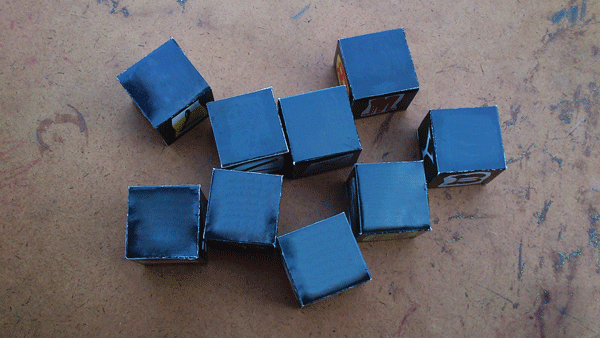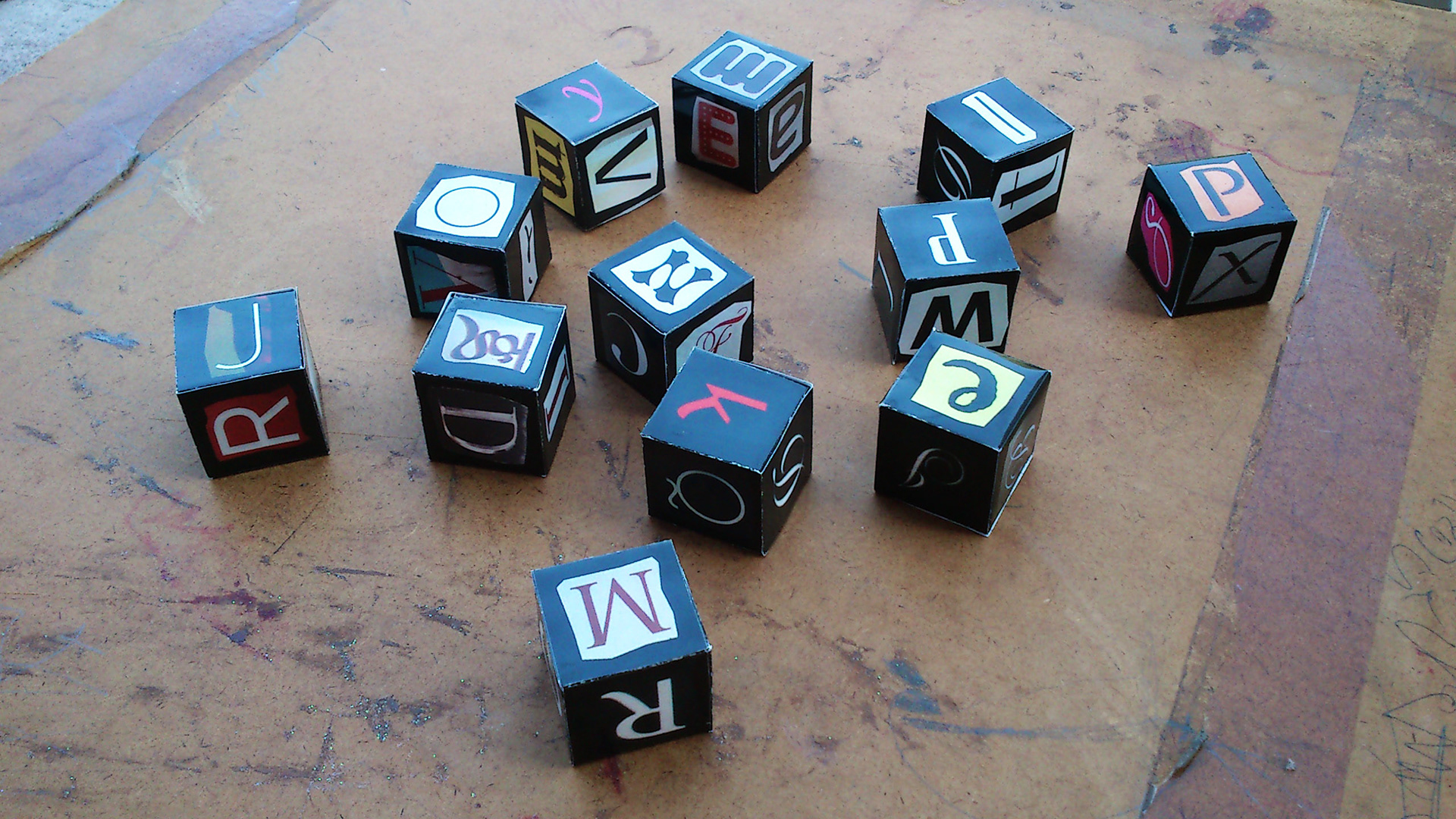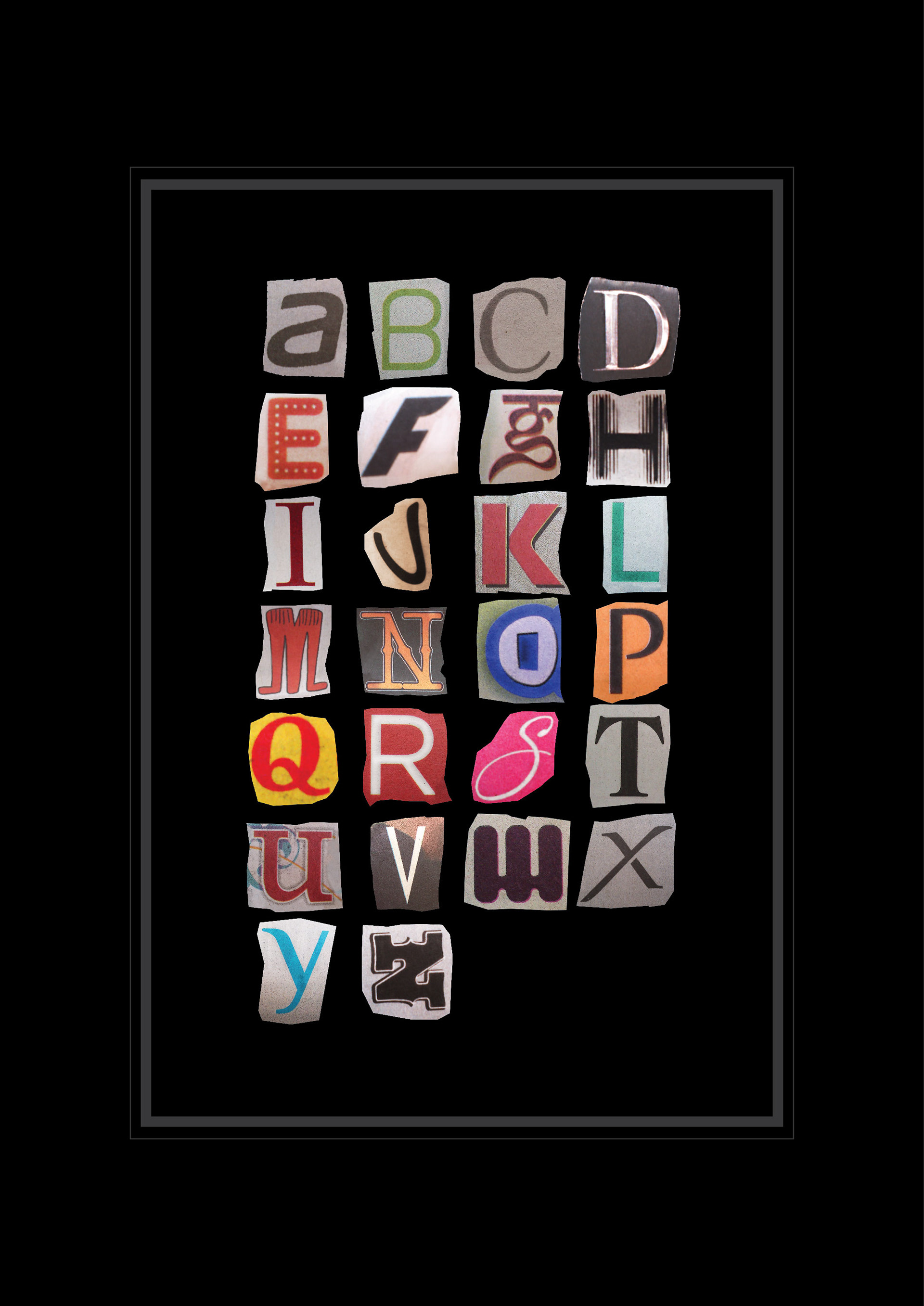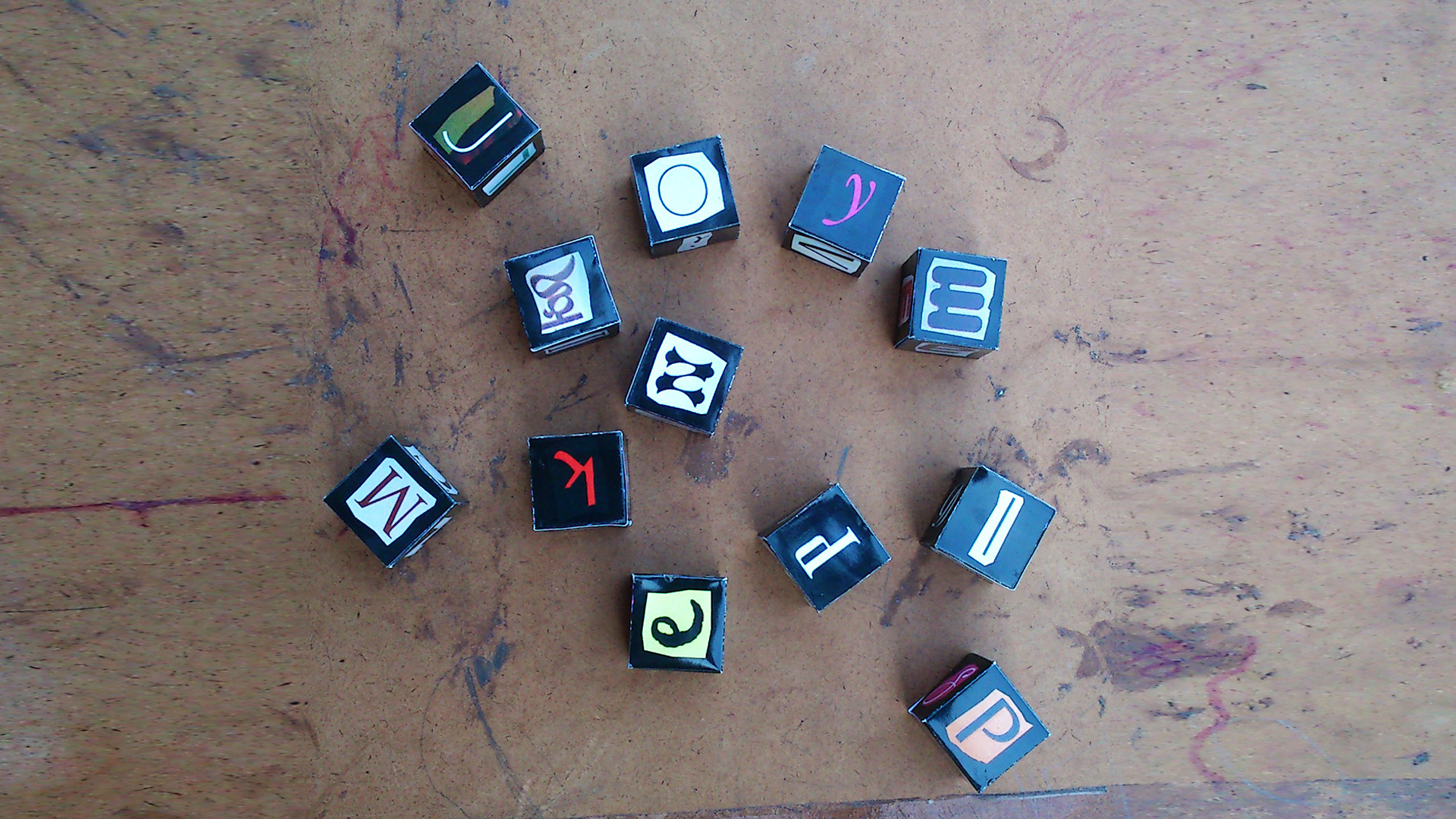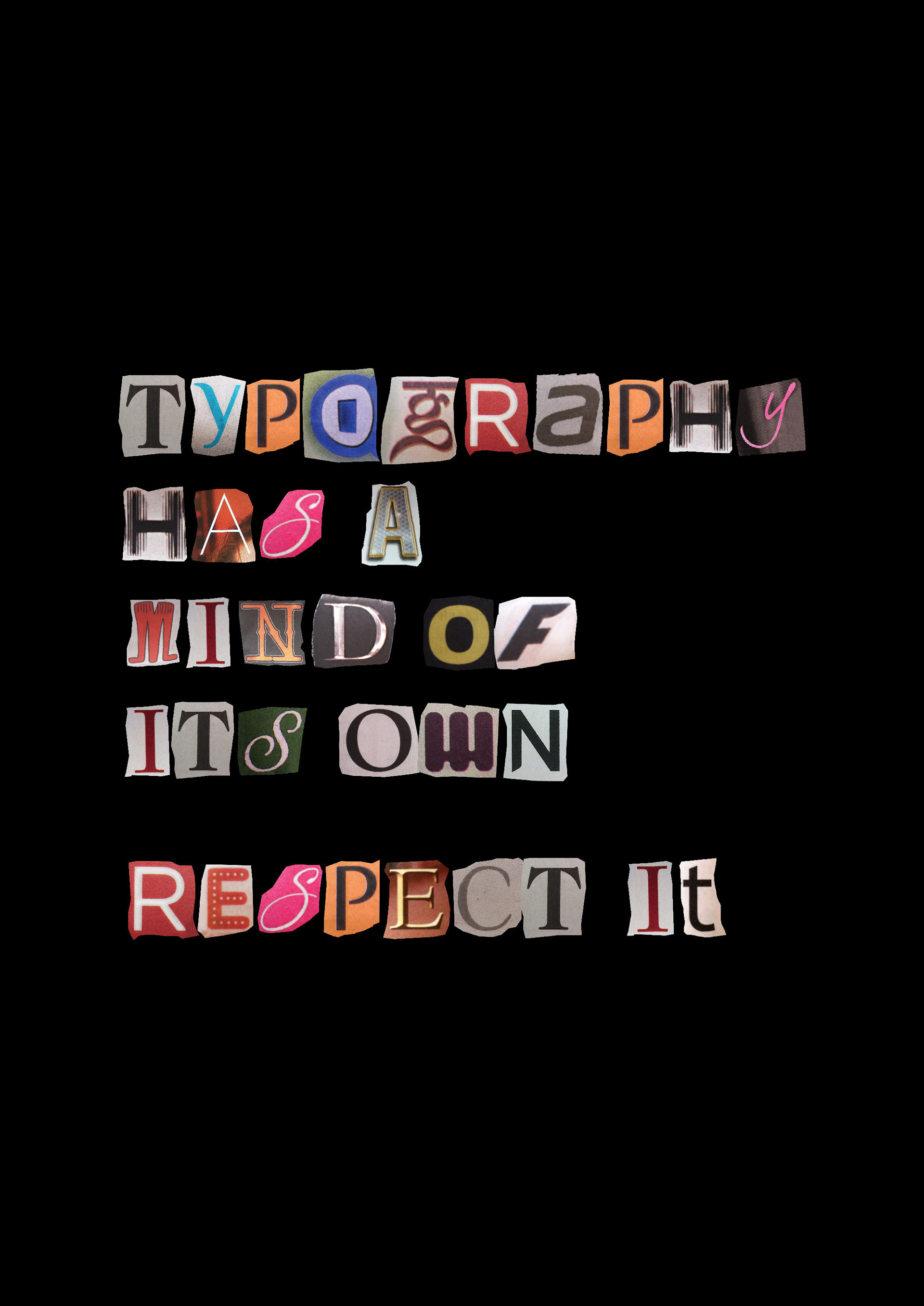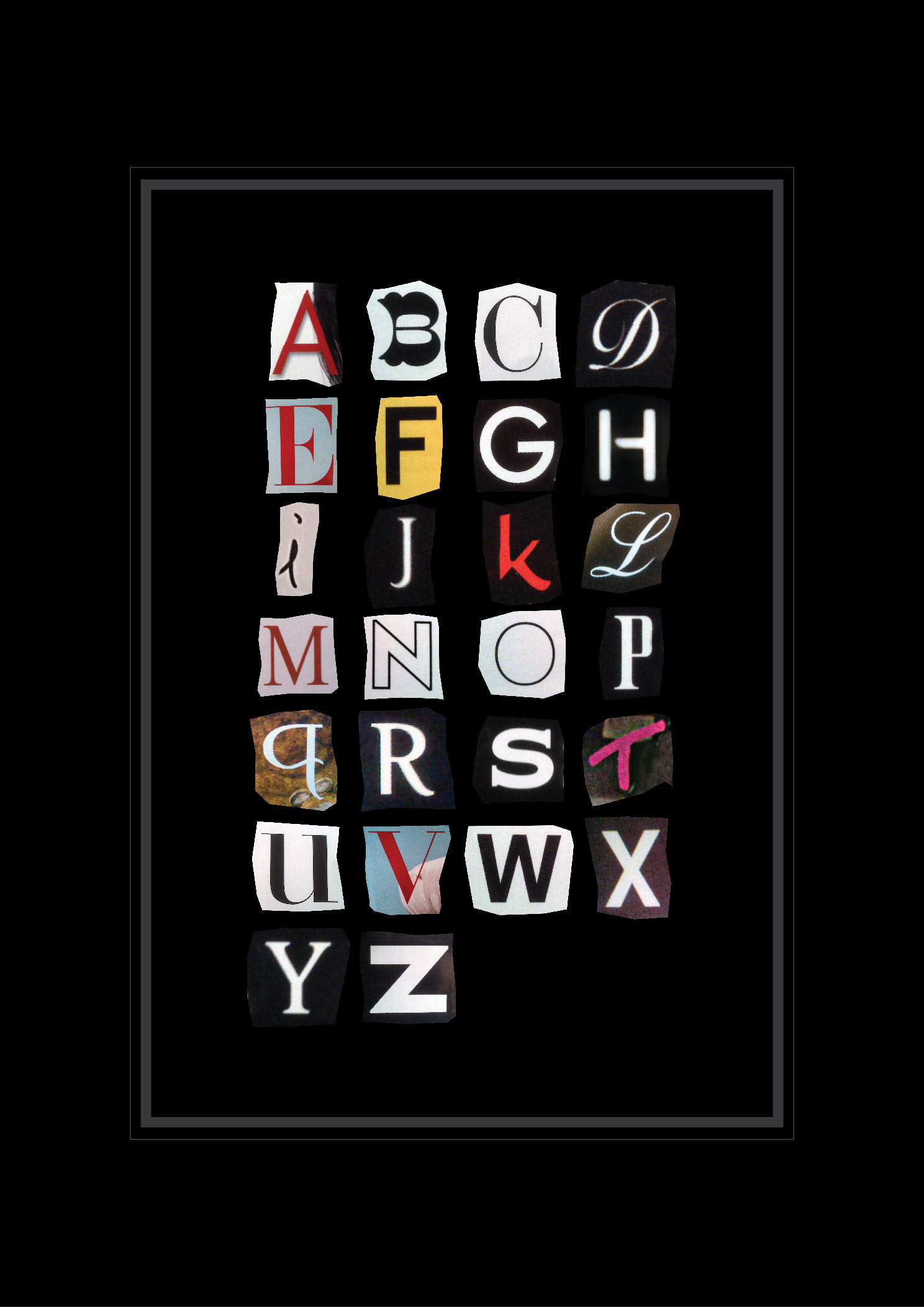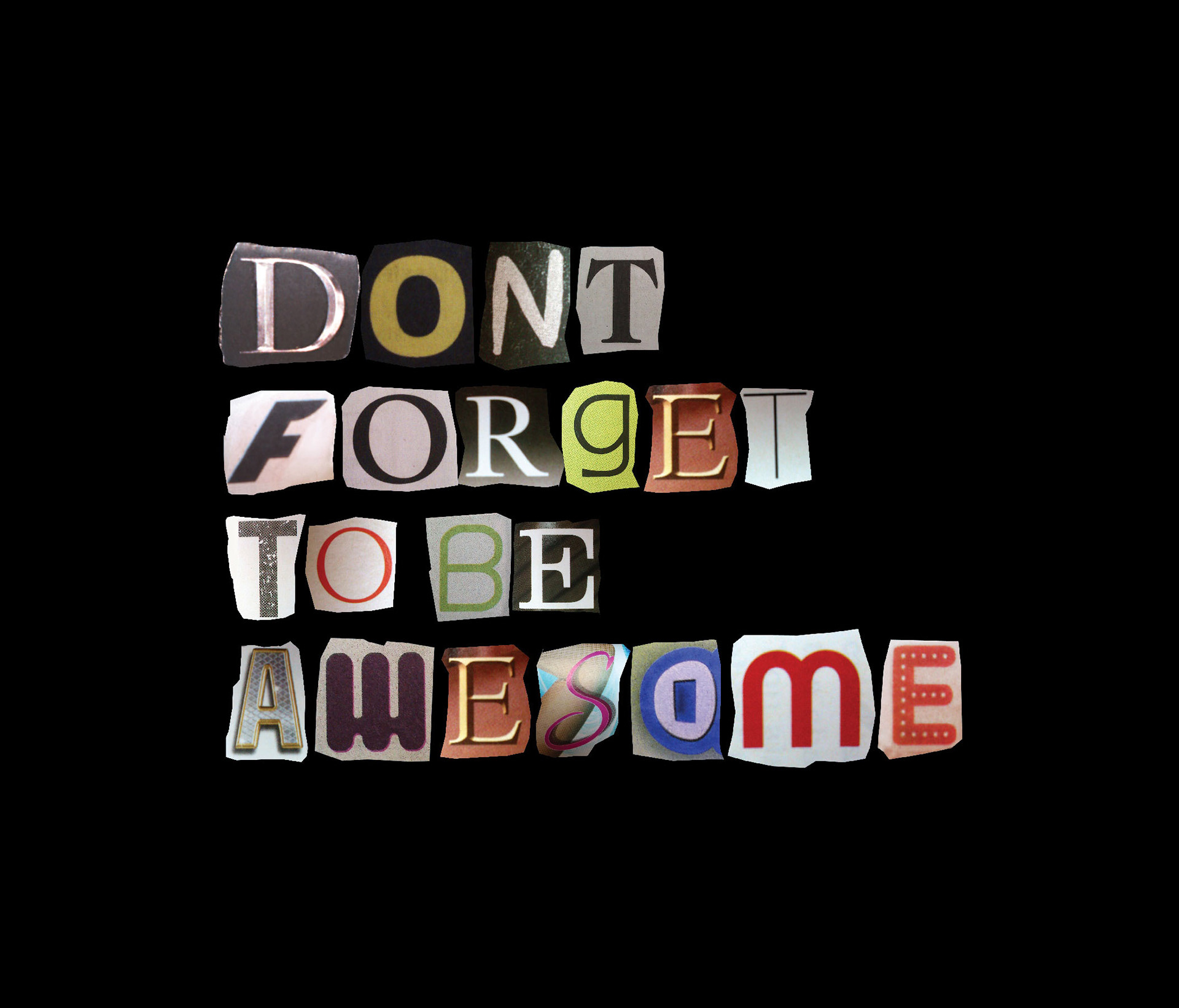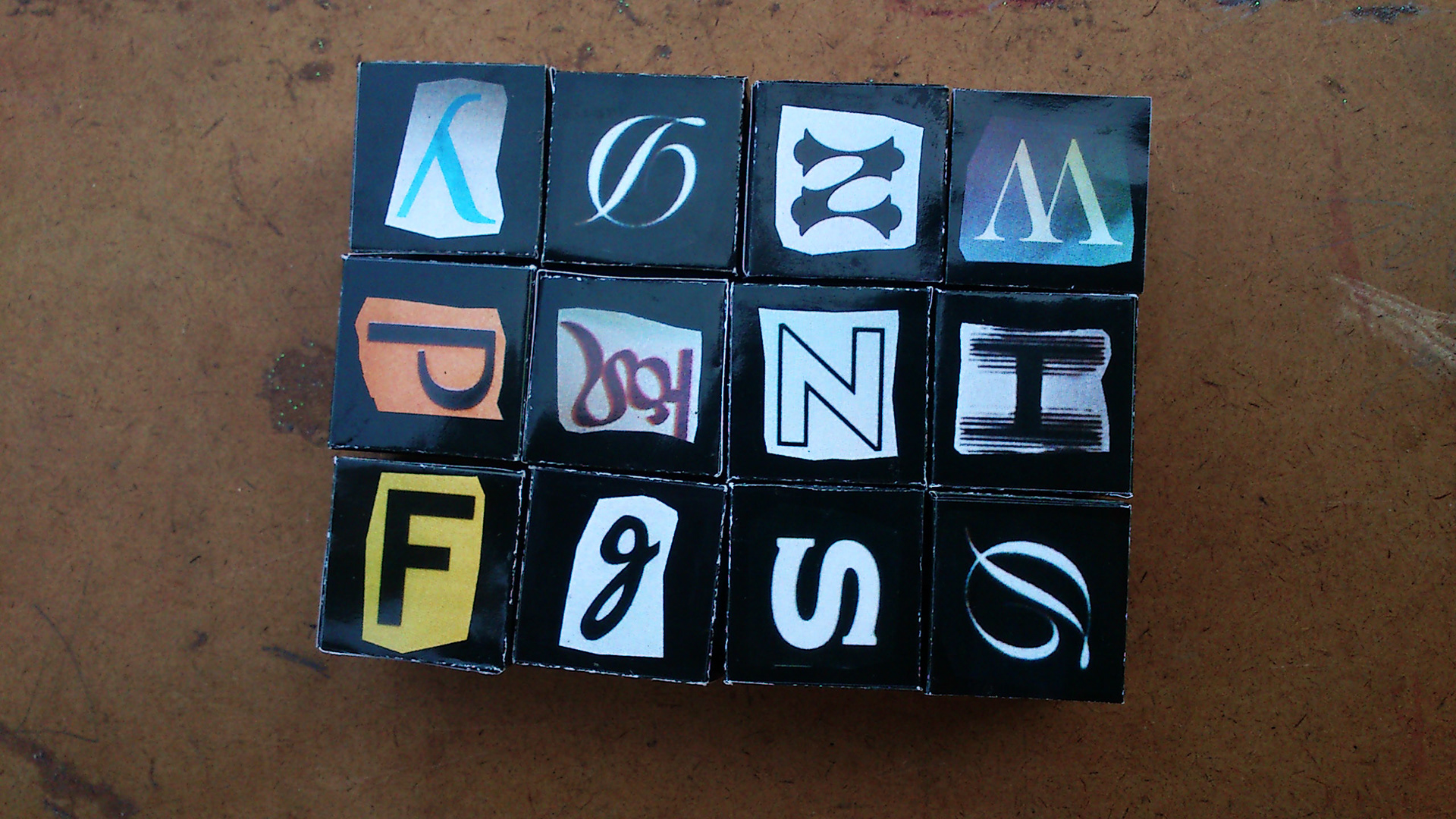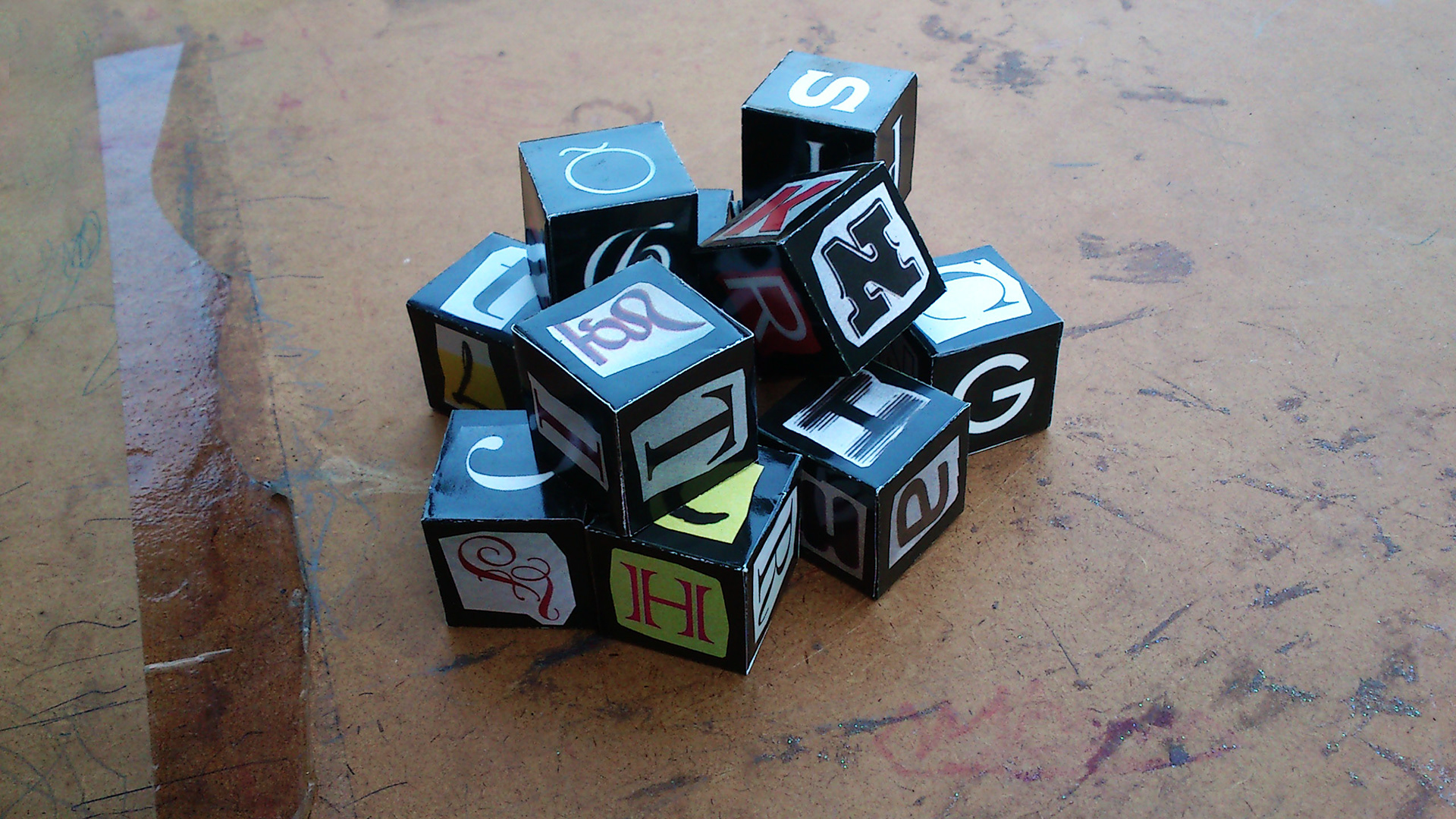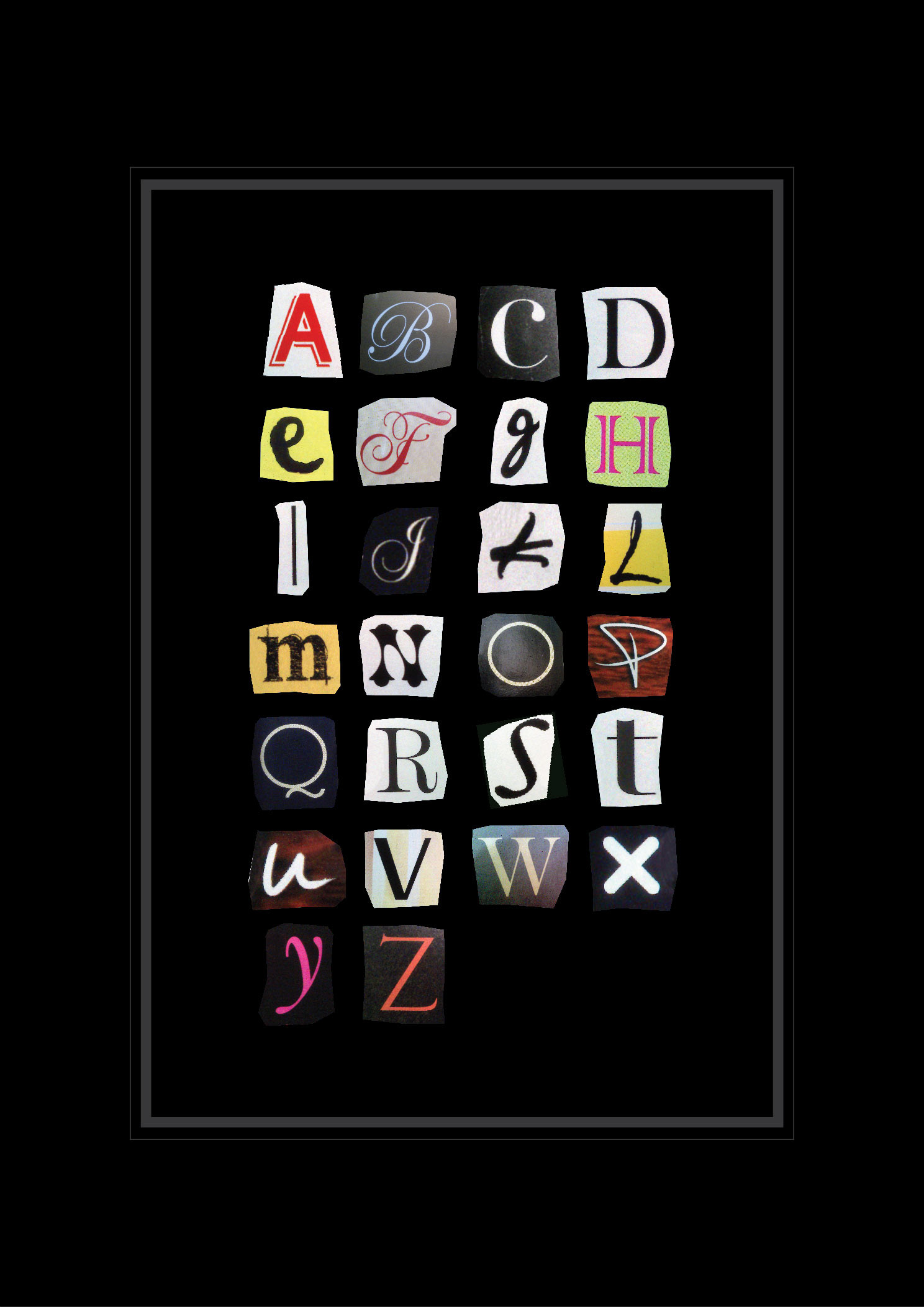
Explored typography by collecting and curating letterforms from magazines, newspapers, and other printed materials. The project focused on comparing different type styles, shapes, weights, and personalities, then translating those findings into compositions and physical typographic pieces. This study helped develop a stronger understanding of type selection, visual contrast, composition, and expressive typography.